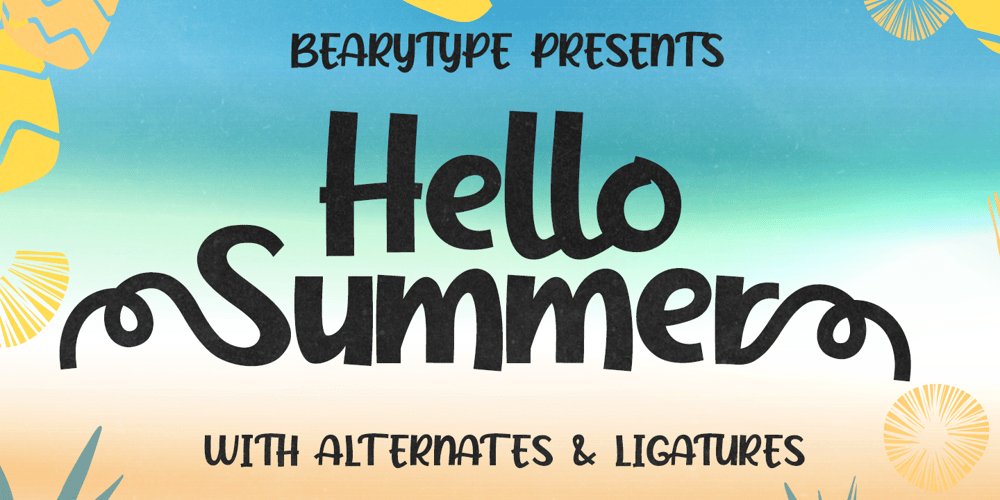
Hello Summer Font Family was designed by Dian Haniffan Hadi and published by Beary. Hello Summer contains 1 styles and family package options. Hello Summer, an amazing hand lettering font with an attractive and natural look. Every single letter has been carefully crafted to make your text looks beautiful. Hello Summer includes over 250 glyphs and over 53 alternate characters with swashes. It has over 60 extended Latin characters for language support. This font is suitable for invitation, branding, advertising, classic design, poster design, and more. Hello Summer is PUA encoded so all characters are accessible via Character Map, Font Book, or the font management program of your choice.